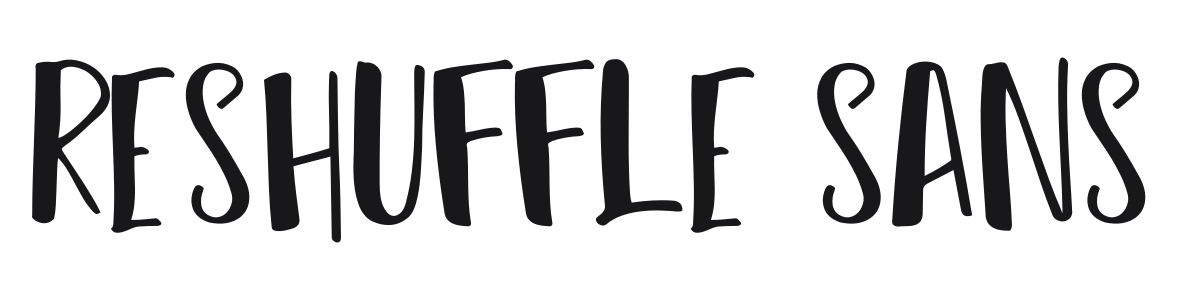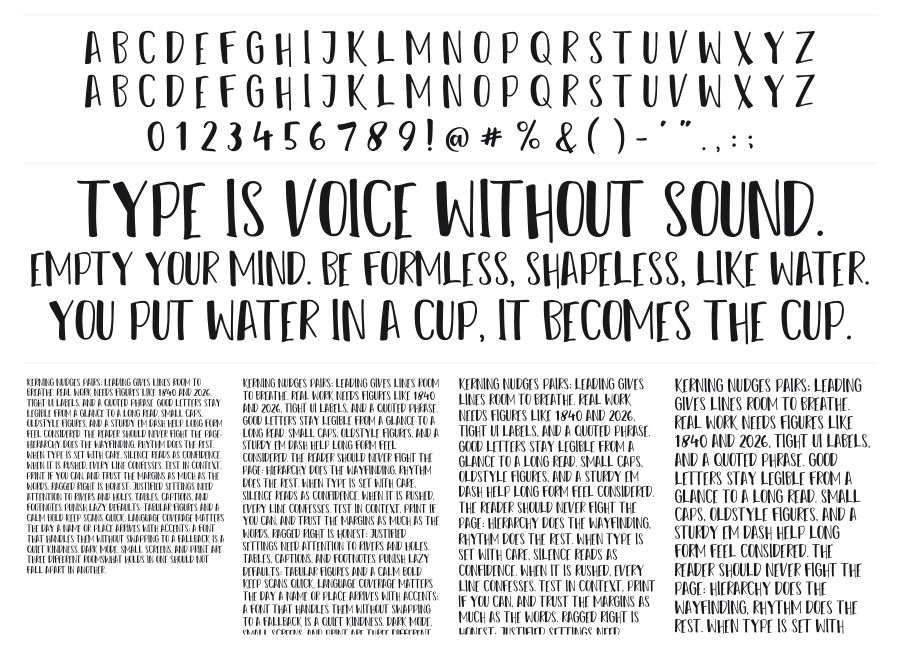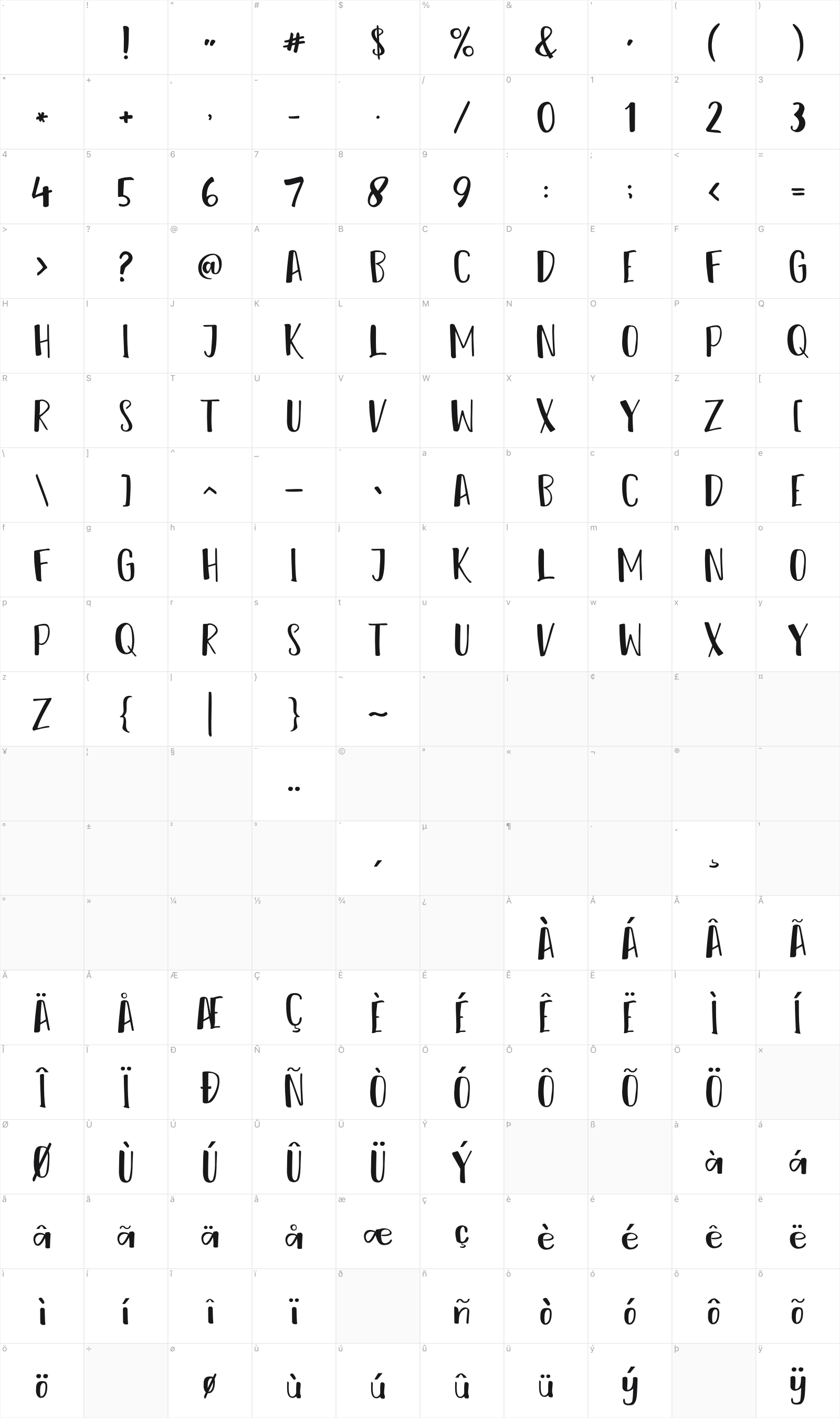
Reshuffle Sans
Reshuffle Sans is a bold hand-lettered sans with tall, condensed proportions and deliberately irregular strokes. Each character carries a slightly rough, marker-drawn quality that evokes vintage signage and casual chalk lettering. It brings an energetic, artisanal feel to headlines, packaging, and branding work.